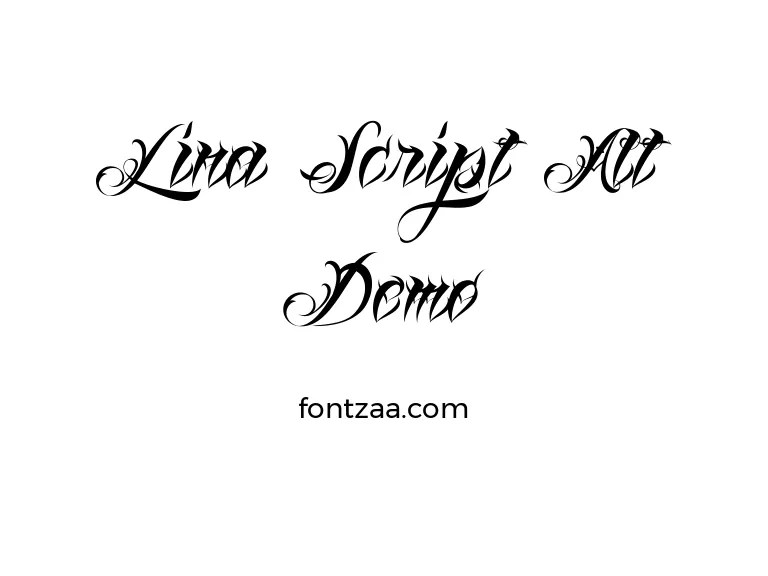
Lina Script Alt Demo Font
Lina Script Alt Demo Font offers expressive lettering for designers looking for a elegant visual direction. Lina Script Alt Demo Font stands out through its individual shapes and can become an important visual element in creative display work. Using generous space around the lettering can help the details of the typeface remain visible instead of competing with other elements. The font can work as the primary visual element in a minimal layout or as part of a more detailed composition. Its letter shapes become especially noticeable at larger sizes, where spacing and proportions can be explored more clearly. Its display-focused appearance makes it worth testing in invitations, wedding stationery, signatures, quotes and elegant branding. Designers should evaluate the typeface inside the real project because a standalone preview cannot show every possible visual combination. Keeping secondary typography simple often allows the distinctive qualities of the main font to remain more visible. The available source information lists MÂns Greb‰ck as the designer or publisher. The listed license is Free for personal use, although users should still review the original font package before commercial use. Its final appearance will depend heavily on the surrounding colors, imagery, spacing and supporting typography.
Lina Script Alt Demo Font brings a elegant personality to typography and gives designers a flexible starting point for headlines, branding and promotional layouts. Testing several arrangements before choosing the final version can reveal which characteristics of the typeface work best. The typeface can change considerably depending on tracking, scale, alignment, background and surrounding imagery. The font can work as the primary visual element in a minimal layout or as part of a more detailed composition. Creative uses may range from invitations, wedding stationery, signatures, quotes and elegant branding, with different results depending on scale and layout. Keeping secondary typography simple often allows the distinctive qualities of the main font to remain more visible. Previewing the final layout on both large and small screens helps identify spacing and readability problems early. The designer or publisher information available for this typeface is MÂns Greb‰ck. Current license information is shown as Free for personal use; checking the original documentation is recommended before client or commercial work. A few quick layout variations can help determine where the font creates the strongest visual result.
The visual character of Lina Script Alt Demo Font makes it an interesting choice for designers working on digital and print projects. The typeface can change considerably depending on tracking, scale, alignment, background and surrounding imagery. Its letter shapes become especially noticeable at larger sizes, where spacing and proportions can be explored more clearly. The font can work as the primary visual element in a minimal layout or as part of a more detailed composition. Possible applications include invitations, wedding stationery, signatures, quotes and elegant branding. Print and digital layouts may require different sizing and spacing, so testing the actual output dimensions is recommended. Designers should evaluate the typeface inside the real project because a standalone preview cannot show every possible visual combination. According to the available font information, the typeface is associated with MÂns Greb‰ck. The listed license is Free for personal use, although users should still review the original font package before commercial use. A few quick layout variations can help determine where the font creates the strongest visual result.
Lina Script Alt Demo Font Family
The Lina Script Alt Demo Font Family can be explored in multiple compositions by adjusting typography size, spacing and surrounding design elements. With its distinctive letterforms, Lina Script Alt Demo Font can introduce a elegant character into font-family exploration. Testing several arrangements before choosing the final version can reveal which characteristics of the typeface work best. The font can work as the primary visual element in a minimal layout or as part of a more detailed composition. Different color combinations can make the same font feel subtle, energetic, premium or highly decorative. Designers may explore it across invitations, wedding stationery, signatures, quotes and elegant branding, depending on the tone and requirements of the project. A clean serif or sans serif companion can handle smaller text while this font remains focused on headlines and key messages. Previewing the final layout on both large and small screens helps identify spacing and readability problems early. The available source information lists MÂns Greb‰ck as the designer or publisher. License details are currently listed as Free for personal use. Users should verify the supplied documentation before using the font in products or paid projects. Experimenting directly in the intended design is usually the best way to judge whether the typeface suits the project.
Lina Script Alt Demo Font Alphabet Preview
The visual character of Lina Script Alt Demo Font makes it an interesting choice for designers working on TTF and OTF compatibility with design software. Different color combinations can make the same font feel subtle, energetic, premium or highly decorative. Its letter shapes become especially noticeable at larger sizes, where spacing and proportions can be explored more clearly. Testing several arrangements before choosing the final version can reveal which characteristics of the typeface work best. Possible applications include invitations, wedding stationery, signatures, quotes and elegant branding. Keeping secondary typography simple often allows the distinctive qualities of the main font to remain more visible. Print and digital layouts may require different sizing and spacing, so testing the actual output dimensions is recommended. The available source information lists MÂns Greb‰ck as the designer or publisher. The listed license is Free for personal use, although users should still review the original font package before commercial use. The most effective treatment will vary by project, so designers should compare several versions before finalizing the artwork. If the font does not immediately appear in an application, restarting the program can refresh its available typeface list.
Lina Script Alt Demo Font stands out through its individual shapes and can become an important visual element in discovering alternatives and related typography. Different color combinations can make the same font feel subtle, energetic, premium or highly decorative. The font can work as the primary visual element in a minimal layout or as part of a more detailed composition. Testing several arrangements before choosing the final version can reveal which characteristics of the typeface work best. Creative uses may range from invitations, wedding stationery, signatures, quotes and elegant branding, with different results depending on scale and layout. Designers should evaluate the typeface inside the real project because a standalone preview cannot show every possible visual combination. A clean serif or sans serif companion can handle smaller text while this font remains focused on headlines and key messages. The available source information lists MÂns Greb‰ck as the designer or publisher. License details are currently listed as Free for personal use. Users should verify the supplied documentation before using the font in products or paid projects. A few quick layout variations can help determine where the font creates the strongest visual result. Explore more typography on Fontzaa or browse the 100% Free Fonts collection.
Projects That Suit Lina Script Alt Demo Font
Lina Script Alt Demo Font brings a elegant personality to typography and gives designers a flexible starting point for different creative applications for the font. Testing several arrangements before choosing the final version can reveal which characteristics of the typeface work best. Different color combinations can make the same font feel subtle, energetic, premium or highly decorative. The typeface can change considerably depending on tracking, scale, alignment, background and surrounding imagery. Creative uses may range from invitations, wedding stationery, signatures, quotes and elegant branding, with different results depending on scale and layout. A clean serif or sans serif companion can handle smaller text while this font remains focused on headlines and key messages. Keeping secondary typography simple often allows the distinctive qualities of the main font to remain more visible. The designer or publisher information available for this typeface is MÂns Greb‰ck. The available licensing label is Free for personal use, but redistribution and commercial permissions should always be confirmed from the original source. A few quick layout variations can help determine where the font creates the strongest visual result.
Best Uses for Lina Script Alt Demo Font
Designers exploring a elegant typeface can use Lina Script Alt Demo Font to add a more recognizable visual voice to practical ways designers can use the typeface. Testing several arrangements before choosing the final version can reveal which characteristics of the typeface work best. The font can work as the primary visual element in a minimal layout or as part of a more detailed composition. Its letter shapes become especially noticeable at larger sizes, where spacing and proportions can be explored more clearly. Its display-focused appearance makes it worth testing in invitations, wedding stationery, signatures, quotes and elegant branding. Previewing the final layout on both large and small screens helps identify spacing and readability problems early. Print and digital layouts may require different sizing and spacing, so testing the actual output dimensions is recommended. The designer or publisher information available for this typeface is MÂns Greb‰ck. The available licensing label is Free for personal use, but redistribution and commercial permissions should always be confirmed from the original source. A few quick layout variations can help determine where the font creates the strongest visual result.